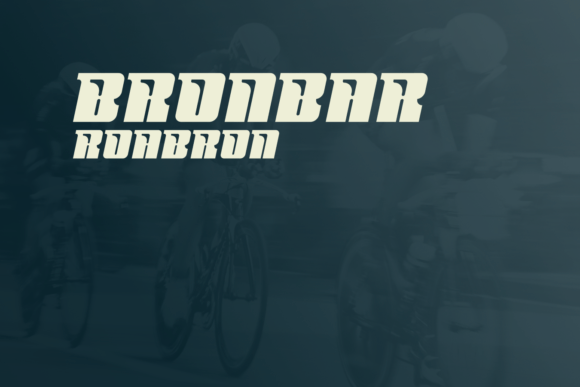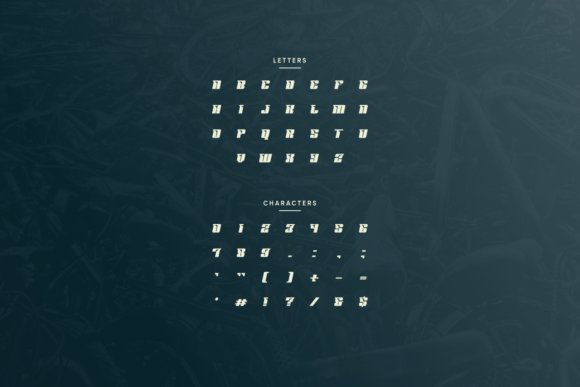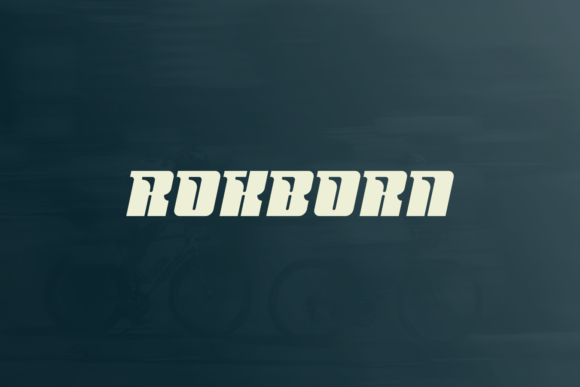
Introduction to Runoba Font
The moment of inspiration strikes, and your creative vision comes alive – but what font can elevate it to the next level? If you’re a designer or artist seeking that perfect blend of modernity and dynamism, you’re in luck. The Runoba Font is here to revolutionize your creative project, bringing a cutting-edge style that combines the future with a hint of sports-inspired flair.
With its all-caps design, the Runoba Font is a standout choice for logos, headlines, posters, magazines, and even games. This high-quality font is a valuable design resource, offering a transparent background that lets your creativity shine. Whether you’re working on a free download project or a paid commission, the Runoba Font is an excellent addition to your toolkit. Its versatility and modern aesthetic make it a must-have for any creative endeavor.
Key Features of Runoba Font
- High-quality design resource perfect for creative projects, offering a unique and stylish look.
- Includes a range of characters and glyphs, making it suitable for a variety of languages and design applications.
Honest Review: Runoba Font
I recently had the chance to work with the Runoba Font and I must say, it’s been a game-changer for my creative projects. The font is perfect for any design resource that requires a unique touch.
- High-quality design that stands out ✨: The Runoba Font is meticulously crafted, offering a distinctive look that’s hard to find elsewhere.
- Limited font styles ⚠️: While the Runoba Font offers a unique look, it’s limited to a few styles, which might not be ideal for complex design projects.
- No extensive character set: The font doesn’t support a wide range of characters, which can be a drawback for designers working with languages that require specific fonts.
Overall, I’m impressed with the Runoba Font. Its unique design and high-quality features make it an excellent choice for creative projects. However, its limitations might not make it the best fit for every design resource. Nonetheless, it’s definitely worth considering for your next design project.
Common Use Cases for Runoba Font
The Runoba Font is ideal for creative projects such as logo design, branding, and graphic design. Its unique design and high-quality features make it perfect for creating eye-catching and professional-looking designs.